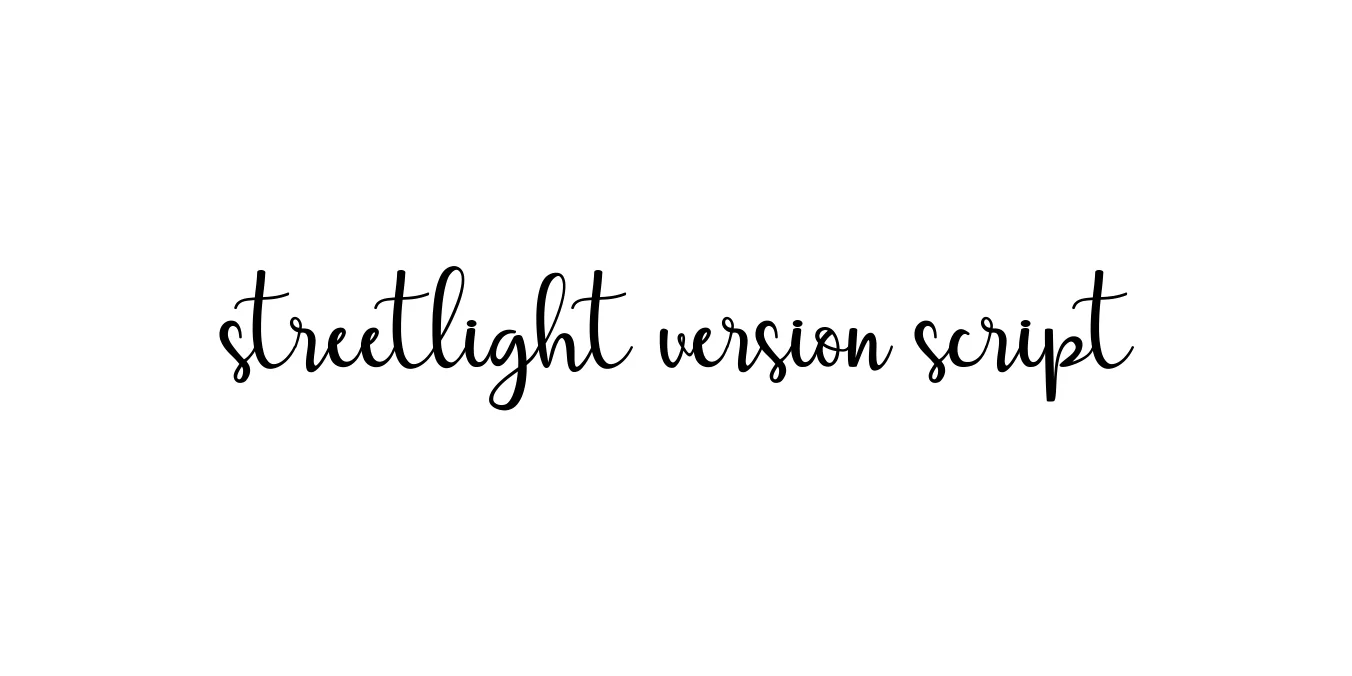
streetlight version script
Designed by Mansi Greel
| Style | script |
| Designer | Mansi Greel |
Streetlight Script is a contemporary calligraphy typeface designed by Mansi Greel. It stands out due to its fluid motion and rhythmic letterforms, which evoke the feeling of hand-drawn ink lettering. The font features a comprehensive set of characters including uppercase, lowercase, and unique ligatures that allow for a seamless connection between letters, enhancing the organic aesthetic of any design project.
Since its release, the font has become a favorite among graphic designers for its versatile application in high-end lifestyle branding and digital content creation. Its delicate weight and balanced proportions ensure legibility even at smaller sizes, while its sweeping ascenders and descenders provide the dramatic flair necessary for large-scale typography such as posters and storefront signage.
streetlight version script Best Uses
Creating romantic and personalized stationery for special events.
Developing unique logos for lifestyle and beauty brands.
Adding a warm, human touch to digital and print cards.
Enhancing visual storytelling on platforms like Instagram and Pinterest.